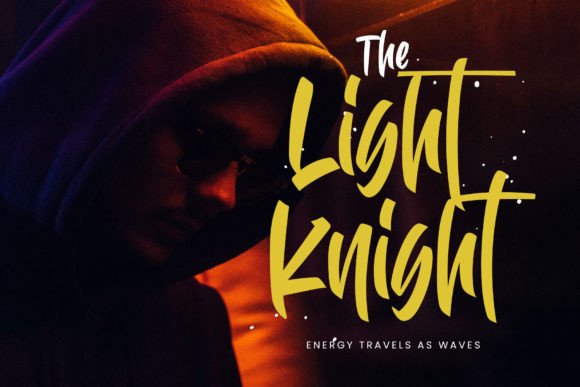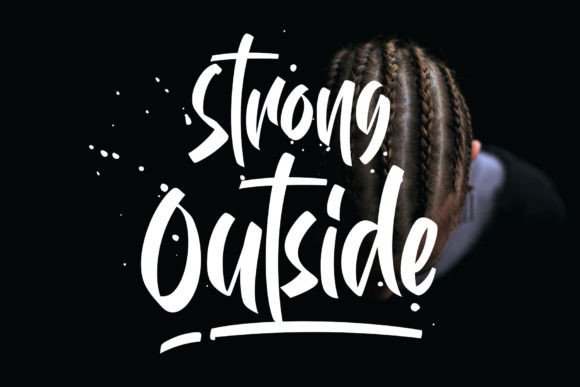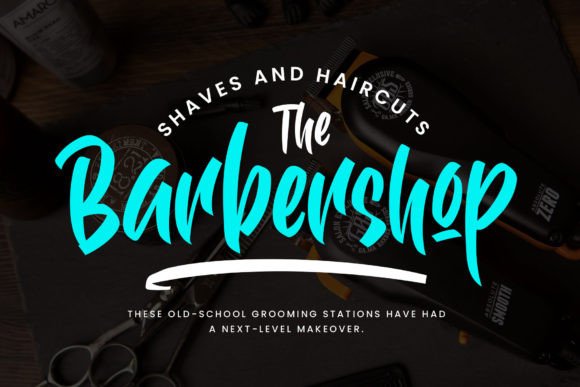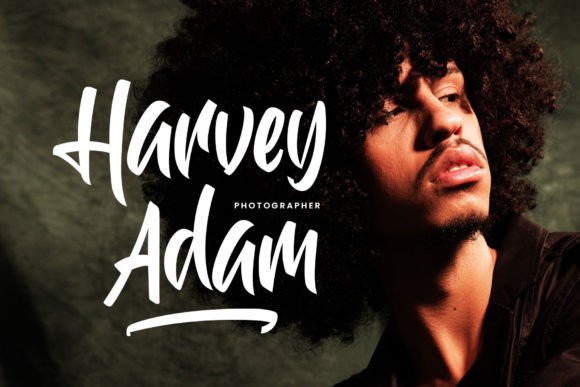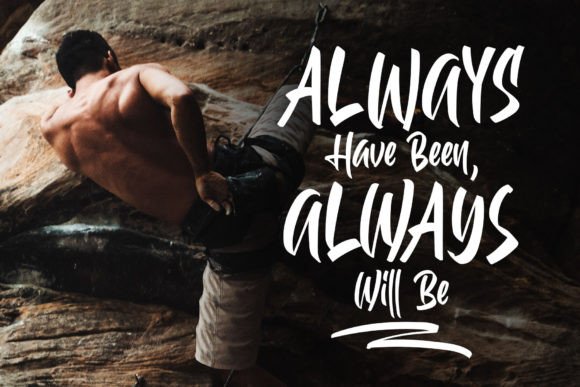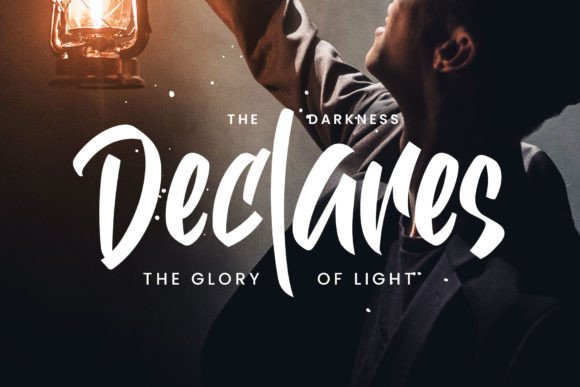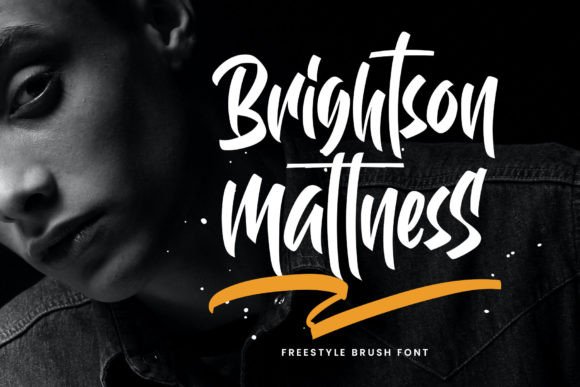
Introducing Brightson Mattness: The Ultimate Freestyle Brush Font for the Cool and Energetic!
Are you tired of using the same old fonts that seem to suck the life out of your designs? Look no further! Brightson Mattness is here to shake things up and bring a burst of energy to your creative projects. This freestyle brush font is the perfect tool for designers and crafters who want to add a vibrant and playful vibe to their work.
Unleash Your Creative Wild Side
Brightson Mattness is all about embracing your creative wild side. This font is not for the faint of heart; it’s for those who want to make a statement and add a dash of personality to their designs. With its unique, hand-brushed strokes, Brightson Mattness injects a sense of fun and spontaneity into every project. Whether you’re working on posters, logos, motion graphics, packaging, or apparel, this font is sure to bring your designs to life.
What Sets Brightson Mattness Apart
So, what makes Brightson Mattness different from your average font? For starters, it’s a freestyle brush font that offers a level of flexibility and creativity that’s hard to find elsewhere. With a wide range of special characters and swashes, you can add an extra punch of personality to your designs. This font is perfect for designers who want to create unique and eye-catching work that stands out from the crowd.
Brightson Mattness is a versatile font that’s perfect for a wide range of design applications. Whether you’re a professional designer or a crafter looking to add a personal touch to your projects, this font is sure to inspire. Here are just a few ways you can use Brightson Mattness:
- Posters and Flyers: Add a burst of energy to your posters and flyers with Brightson Mattness. This font is perfect for creating eye-catching headlines and adding a playful touch to your designs.
- Logos and Branding: Create a unique and memorable logo with Brightson Mattness. This font is perfect for businesses that want to stand out and make a statement.
- Motion Graphics: Add a dynamic and energetic touch to your motion graphics with Brightson Mattness. This font is perfect for creating engaging animations and videos.
- Packaging: Make your packaging stand out with Brightson Mattness. This font is perfect for adding a personal touch to your product labels and packaging materials.
- Apparel: Create unique and stylish apparel with Brightson Mattness. This font is perfect for designing t-shirts, hoodies, and other clothing items.
Key Features of Brightson Mattness
So, what can you expect from Brightson Mattness? Here are just a few key features that make this font so special:
- Freestyle Brush Font: Brightson Mattness is a freestyle brush font that offers a level of flexibility and creativity that’s hard to find elsewhere.
- Special Characters and Swashes: This font includes a wide range of special characters and swashes that you can use to add an extra punch of personality to your designs.
- Vibrant and Playful Vibe: Brightson Mattness injects a vibrant and playful vibe into every stroke, making it perfect for designers who want to add a dash of fun to their work.
- Perfect for Designers and Crafters: This font is perfect for designers and crafters who want to create unique and eye-catching work that stands out from the crowd.
Brightson Mattness is more than just a font – it’s a creative tool that’s designed to help you unleash your wild side. With its unique, hand-brushed strokes and wide range of special characters and swashes, this font is perfect for designers and crafters who want to add a burst of energy to their projects. So why wait? Get your hands on Brightson Mattness today and start creating designs that are truly one-of-a-kind!
In conclusion, Brightson Mattness is the ultimate freestyle brush font for designers and crafters who want to add a vibrant and playful vibe to their work. With its unique features and versatility, this font is sure to inspire creativity and help you create designs that stand out from the crowd. So don’t miss out on this amazing opportunity to take your designs to the next level – get Brightson Mattness today!